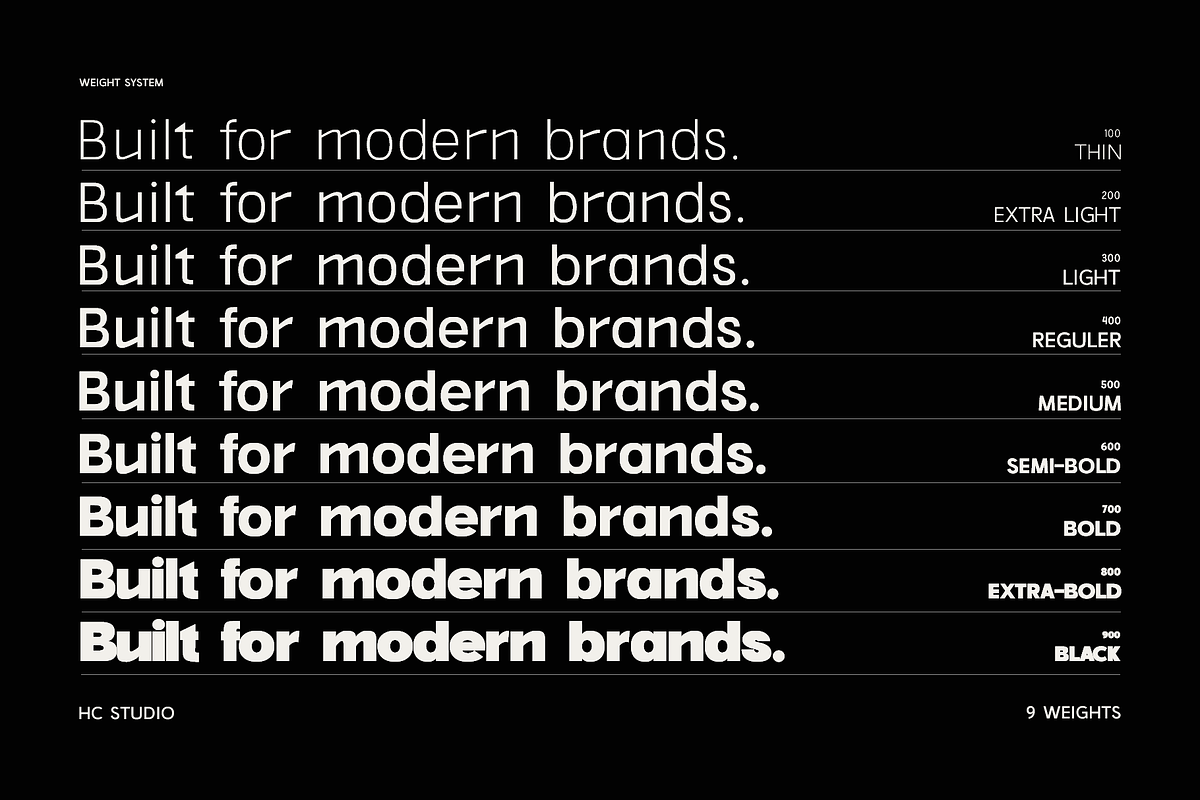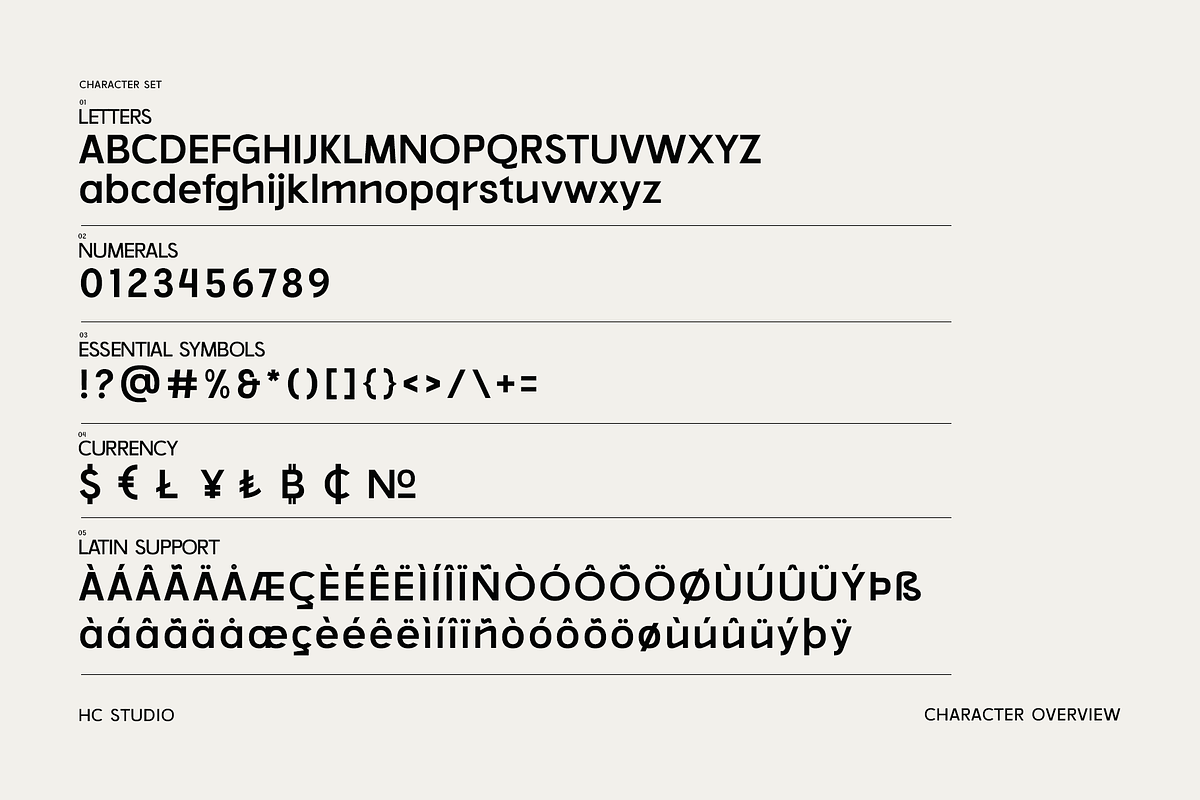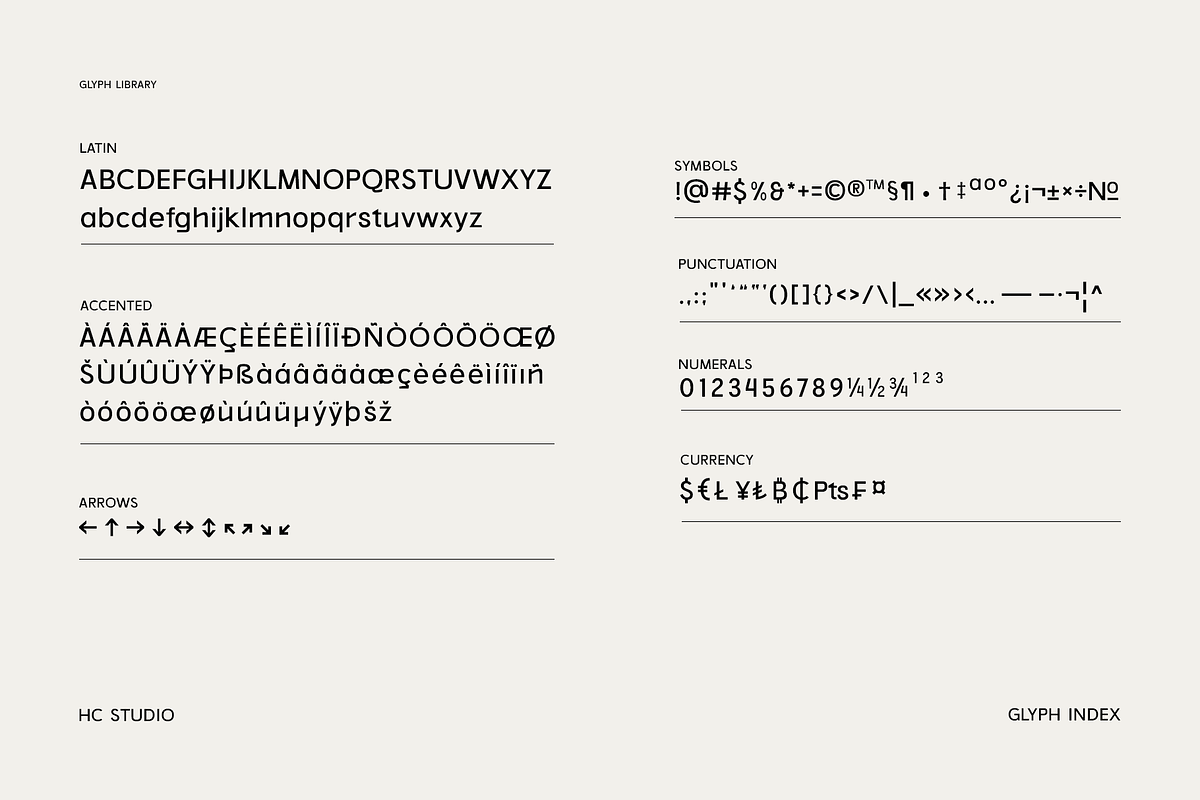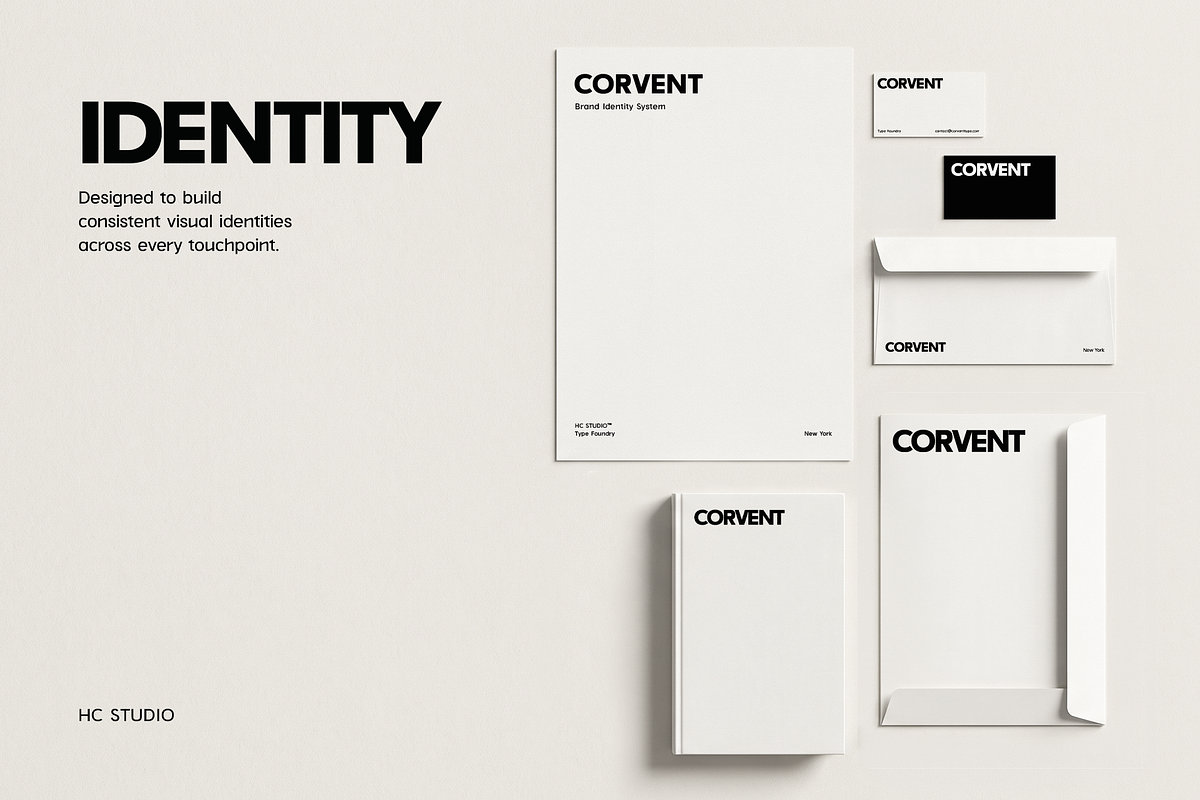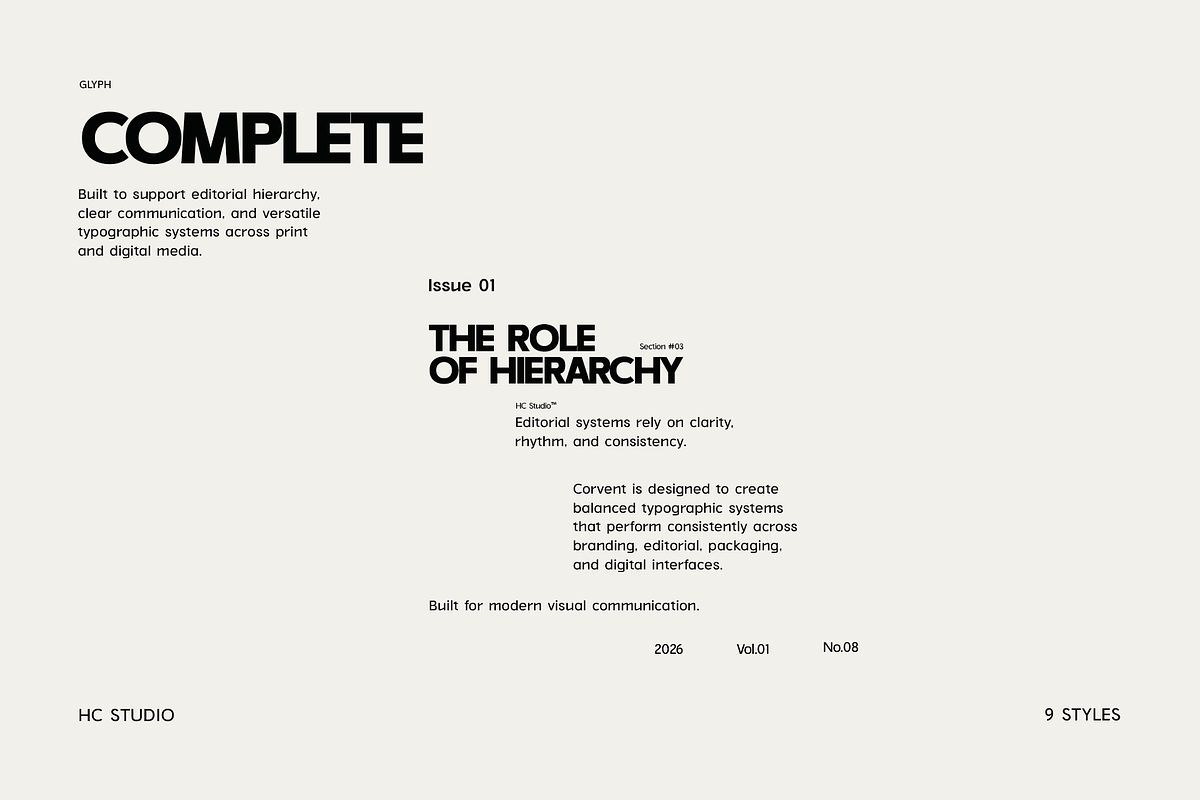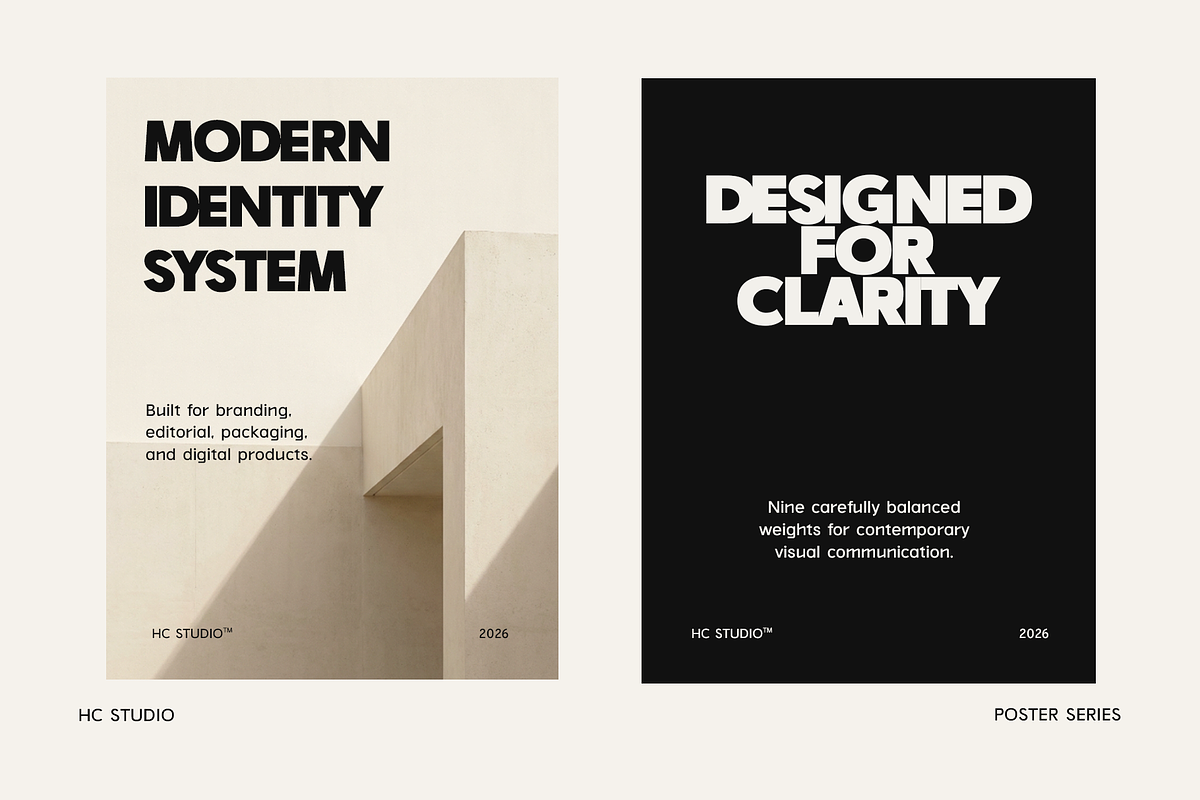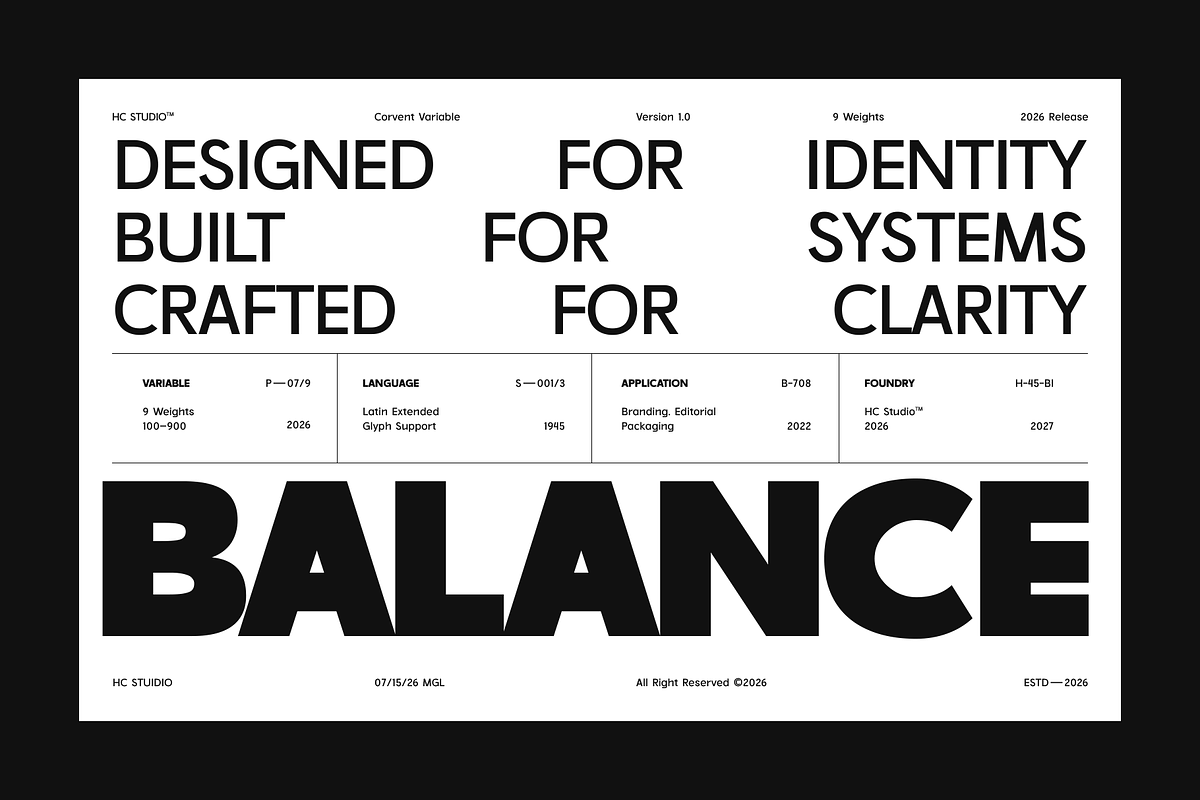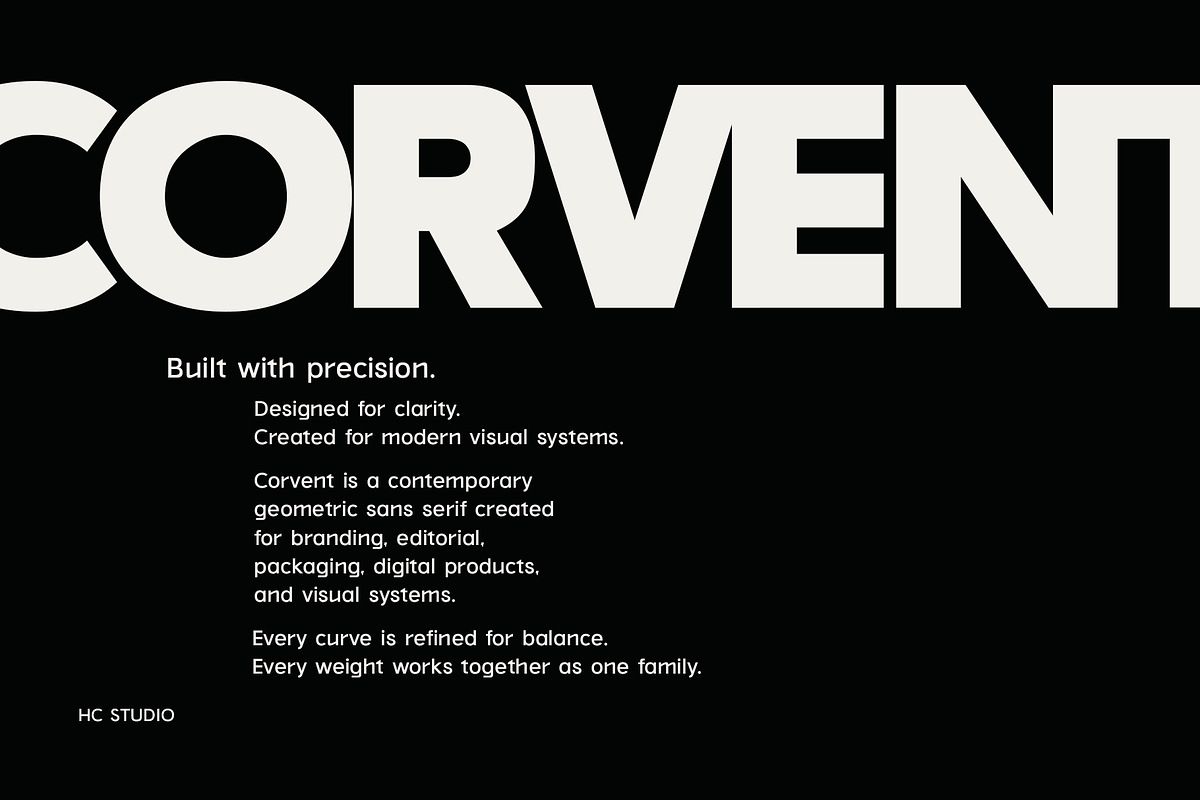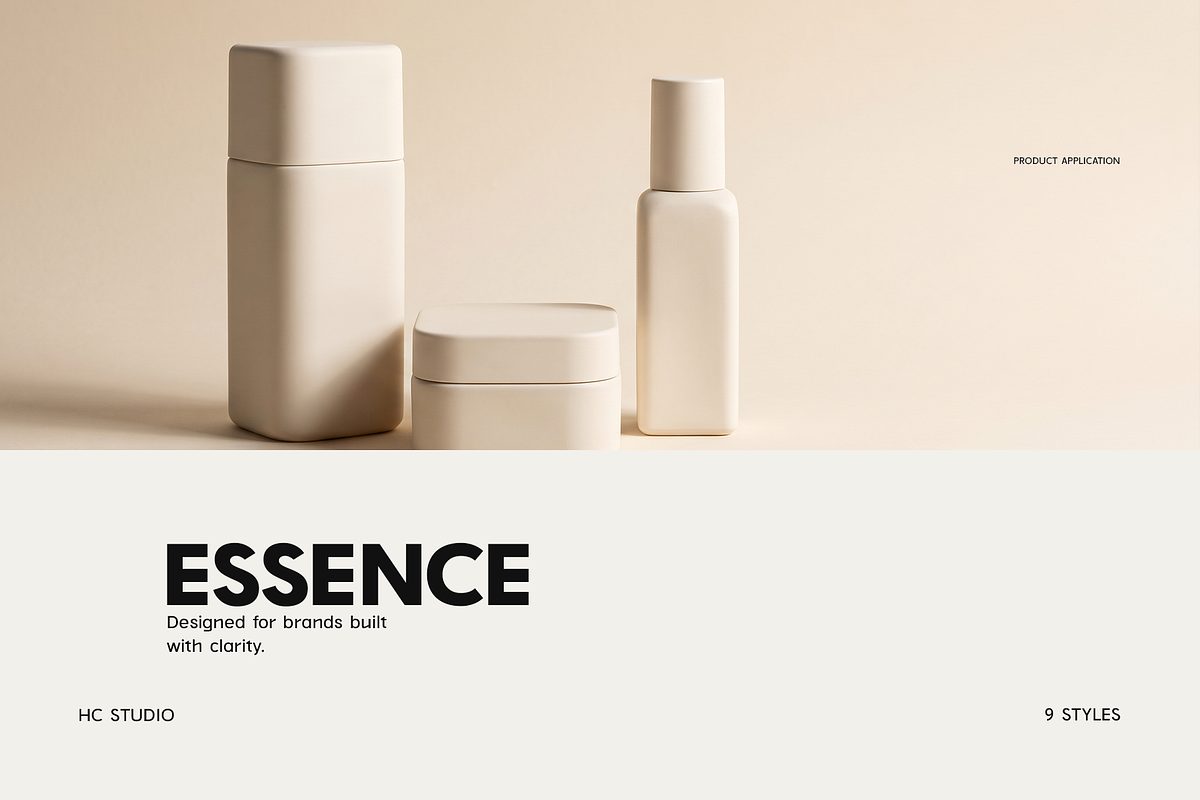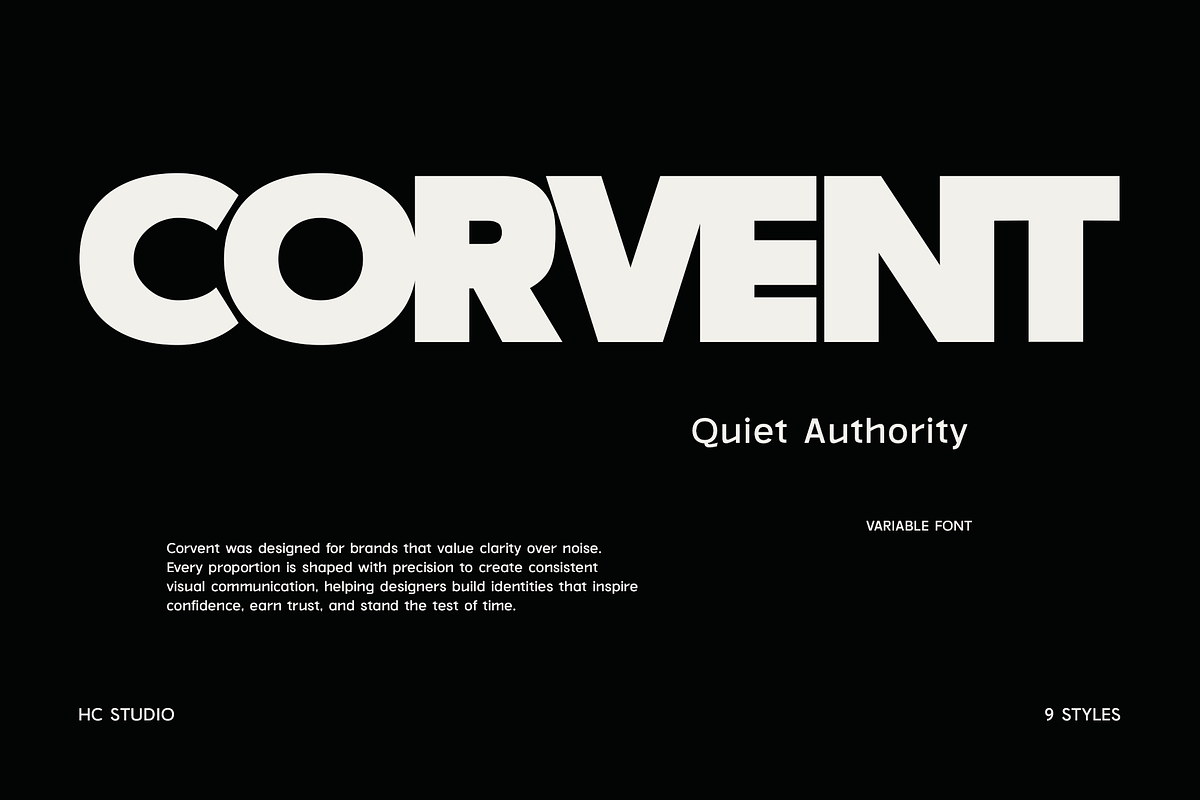
Corvent – Geometric Sans Serif
Contemporary Geometric Sans Serif
Designed for Identity. Built for Systems. Crafted for Clarity.
Corvent is a contemporary geometric sans serif created for designers who build brands, systems, and meaningful visual communication. Developed with a strong focus on optical balance, structural consistency, and refined proportions, Corvent provides a dependable typographic foundation for projects that demand both precision and flexibility.
Rather than following short-lived visual trends, Corvent embraces a timeless approach to modern typography. Every curve, counter, terminal, and proportion has been carefully refined to create a typeface that feels confident, balanced, and purposeful across a wide range of professional applications.
Whether you're developing a complete brand identity, designing an editorial publication, building a packaging system, creating a digital interface, or crafting presentation materials, Corvent adapts naturally while maintaining a consistent visual voice.
The family includes nine carefully crafted weights, ranging from Thin to Black, alongside a fully functional Variable Font, allowing designers to create smooth typographic hierarchy without compromising consistency. Each weight has been designed as part of a unified system, ensuring seamless transitions across headlines, subheadings, body text, captions, and supporting information.
Corvent performs equally well in expressive display typography and structured editorial layouts. Its balanced geometry, generous counters, and carefully controlled spacing produce a comfortable reading experience while preserving the strong visual presence required for contemporary branding.
Designed as a complete design system rather than a collection of individual styles, Corvent encourages consistency throughout every stage of the creative process. From logo design and visual identity to editorial layouts, packaging, websites, interfaces, advertising campaigns, and presentation decks, every weight contributes to a cohesive typographic language.
Why Choose Corvent?
Unlike many geometric sans serif typefaces that prioritize rigid construction, Corvent has been optically refined to achieve a more natural reading rhythm. Every decision—from curve transitions and stroke balance to spacing and overall proportions—has been carefully considered to create typography that feels both precise and approachable.
The result is a type family that offers the clarity demanded by modern identity systems while retaining the flexibility required for everyday design work.
- Brand Identity
- Editorial Design
- Packaging Design
- Logo Design
- Corporate Branding
- Digital Products
- UI & UX Design
- Websites
- Presentation Design
- Marketing Materials
- Advertising Campaigns
- Print Publications
= Product Design
- Creative Agencies
= Design Studios
- Contemporary Geometric Sans Serif
- 9 Professional Weights
- Variable Font Included
- Latin Extended Language Support
- Currency Symbols
- Accented Characters
- Carefully Balanced Spacing
- Optically Refined Letterforms
- Consistent Typographic System